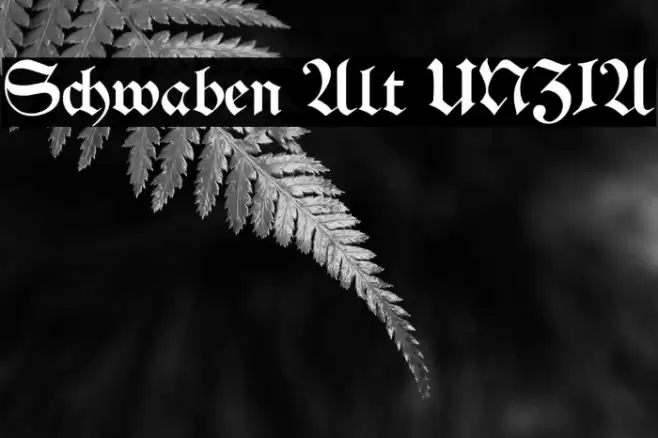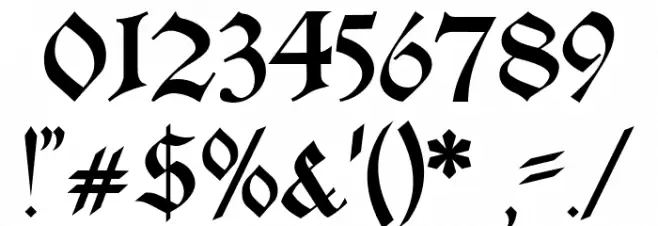
Schwaben Alt UNZ1A Font
Schwaben Alt UNZ1A Description
This font exudes a traditional and historical essence, reminiscent of medieval script styles. The characters are intricately designed with sharp, angular strokes and a distinct blackletter influence. Each letter features elaborate curves and pointed edges, creating a dramatic and ornate appearance. The uppercase letters are particularly bold and commanding, while the lowercase letters maintain a consistent flow with elegant flourishes. The numerals are equally stylized, maintaining the overall gothic theme. Special characters are crafted with the same attention to detail, enhancing the font's decorative appeal.
A bold, gothic-style font with intricate, angular strokes and a blackletter influence from Uncategorized fonts.
- Overall Style: Vintage